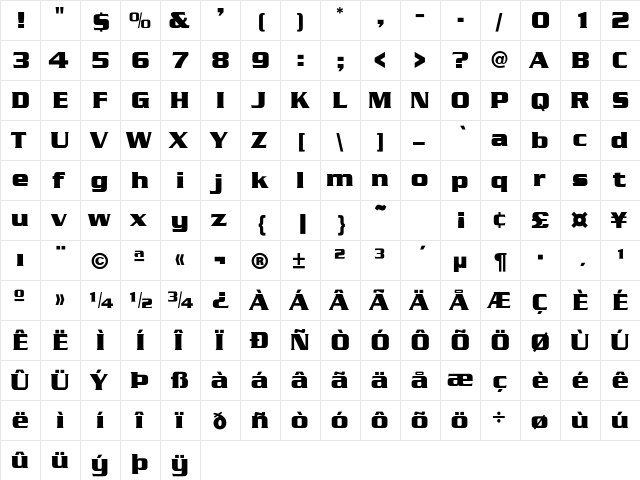
Sarentino Regular
Design Context for Sarentino Typeface
Sarentino is a composed and adaptable typeface that performs quietly and consistently across a wide range of design contexts.